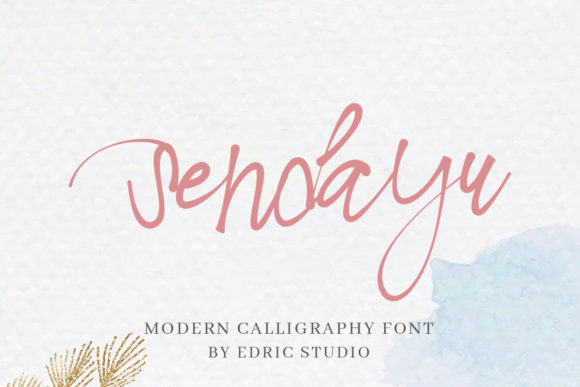
In a digital realm awash with monotony, Sendayu emerges as a refreshing oasis of creativity, an exquisite script font that breathes life into the world of design. Its name, derived from the enchanting Sendayu flower, echoes the font's innate elegance and charm. Sendayu is not merely a collection of letters; it's an artistic journey that captivates the senses, transforming ordinary words into breathtaking visual masterpieces.
Sendayu's genesis lies in the hands of EdricStudio, a visionary foundry renowned for crafting typographic gems. With Sendayu, they have surpassed themselves, creating a font that seamlessly blends classic grace with contemporary flair. Its meticulously crafted characters dance across the screen, each stroke imbued with a unique personality that captivates the eye and stirs the soul.
The essence of Sendayu lies in its versatility, a chameleon-like ability to adapt to any design concept with effortless grace. Whether you seek to craft elegant wedding invitations, design eye-catching logos, or create social media posts that command attention, Sendayu stands as your steadfast companion. Its diverse range of glyphs, swashes, and alternates empowers you to unleash your creativity, transforming your designs into captivating works of art.
With Sendayu, the possibilities are boundless. Let your imagination soar as you craft enchanting branding materials that leave a lasting impression. Sendayu elevates your designs, lending them an air of sophistication and allure. Envision the awe and admiration your audience will experience as they encounter your creations, each meticulously adorned with Sendayu's timeless beauty.
Sendayu's versatility extends beyond its aesthetic appeal. It is meticulously engineered to ensure seamless integration with your creative software, allowing you to effortlessly unleash your design vision. Embrace the freedom to experiment, blend, and combine elements, knowing that Sendayu will always complement your artistic endeavors.
Indulge in the boundless creative potential of Sendayu, the script font that ignites your passion and transforms your designs into captivating expressions of artistry. Experience the joy of creating with a font that is as versatile as it is beautiful, as user-friendly as it is awe-inspiring. Allow Sendayu to be your creative partner, guiding you towards design excellence and leaving an indelible mark on the world of aesthetics.